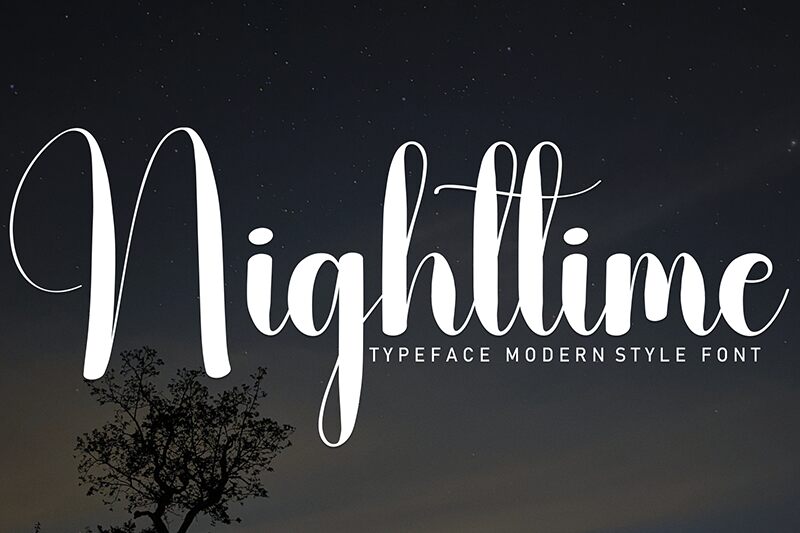
Nighttime
Nighttime font by Andi Moz embodies elegance in every line. This free calligraphy font captures a sophisticated mood with its flowing, graceful curves and script style. It has an aesthetic appeal that makes it suitable for achieving certain artistic visions and expressing particular emotions via text.
Use Nighttime for your handwritten quotes, greeting cards, wedding invites, logos, or product packaging. Other options include magazines where you can edit applicable sections including headers and footers, book covers via titles and authors' names, as well as journals and planner designs for personal use.